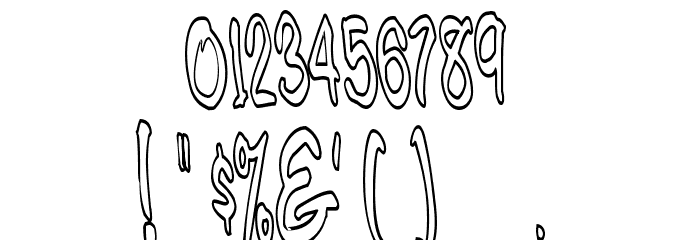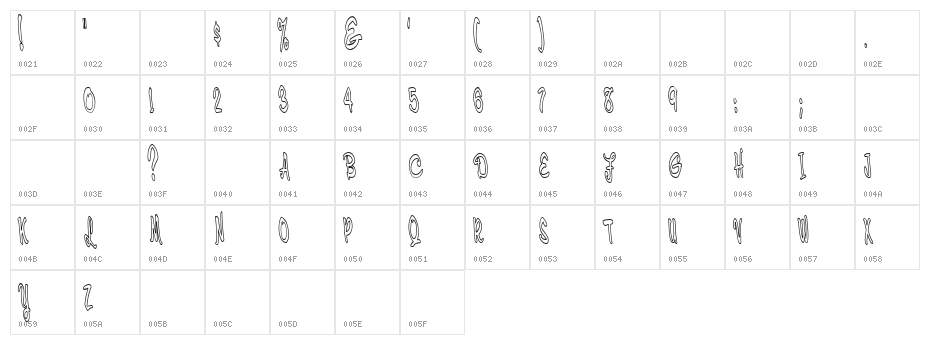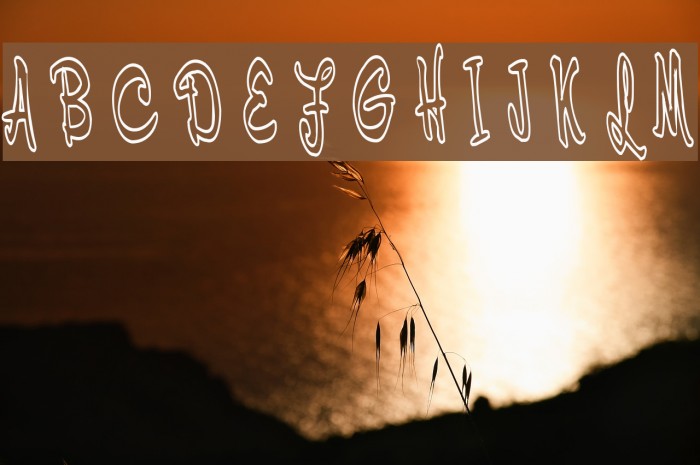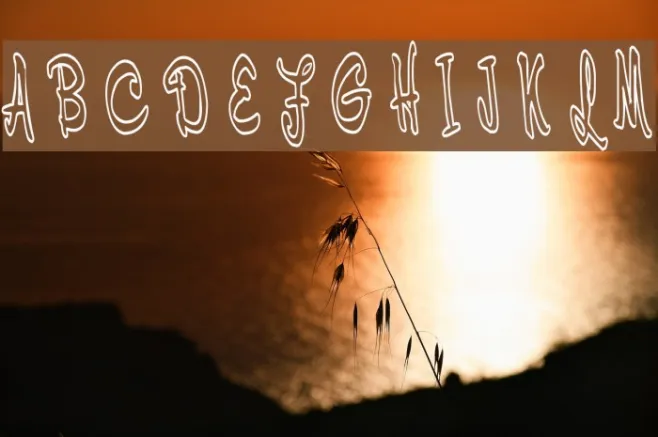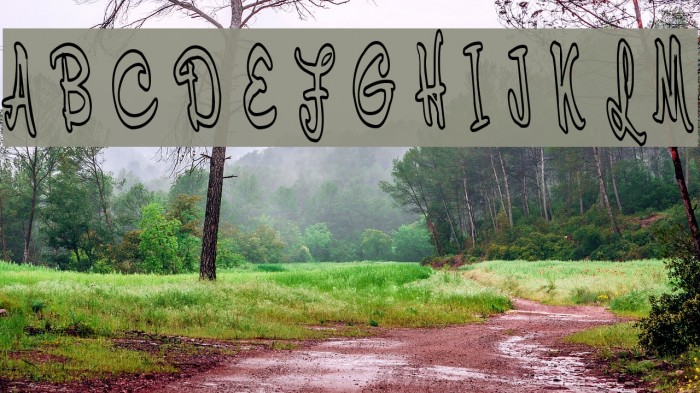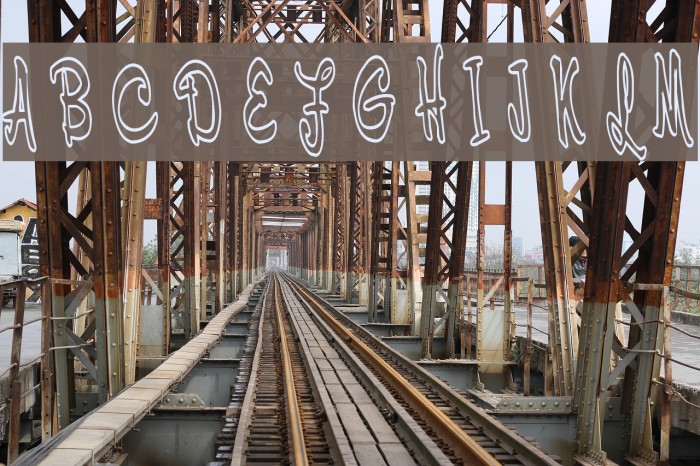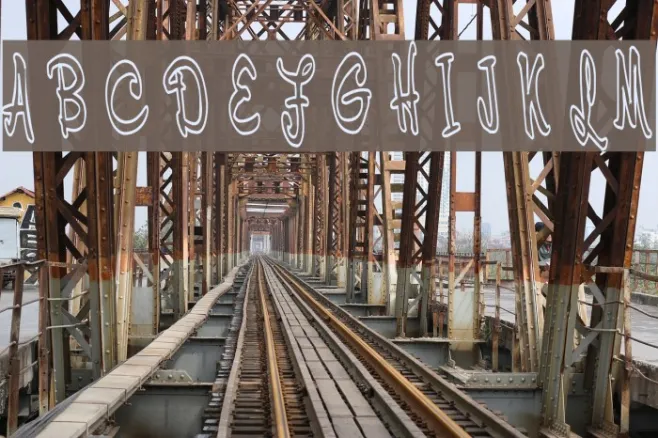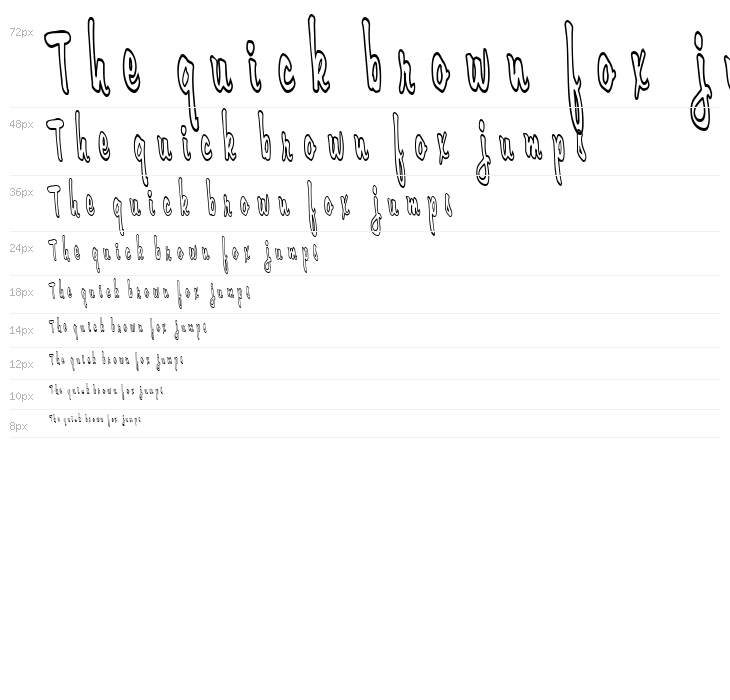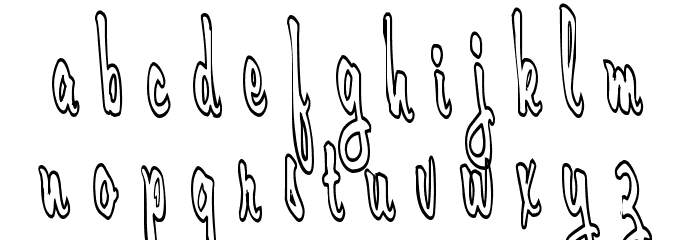
Cerbature Font
Cerbature Description
This font features a playful and whimsical design with a hand-drawn aesthetic. Each character is outlined with a bold stroke, giving it a cartoon-like appearance. The uppercase letters are tall and narrow, while the lowercase letters have a more rounded and casual feel. The numbers and special characters maintain the same playful style, making the font suitable for creative and informal projects. The overall look is dynamic and lively, with a sense of movement in the strokes, adding a unique charm to any design.
| Overall Style | Playful, Whimsical, Hand-drawn |
| Proposed Projects | Ideal for children's books, comic strips, playful branding, and creative posters. |